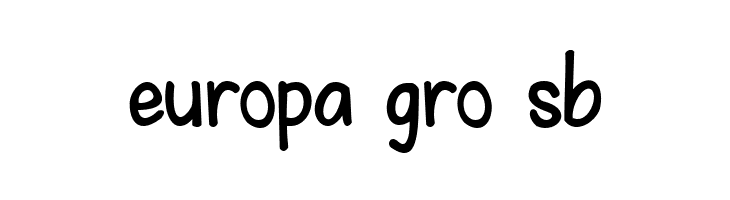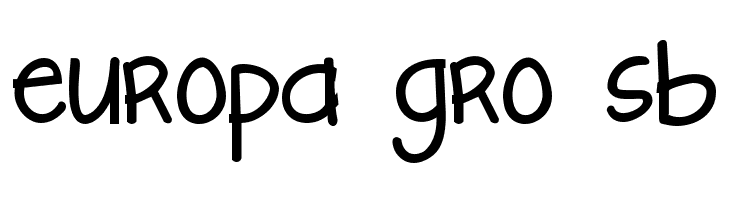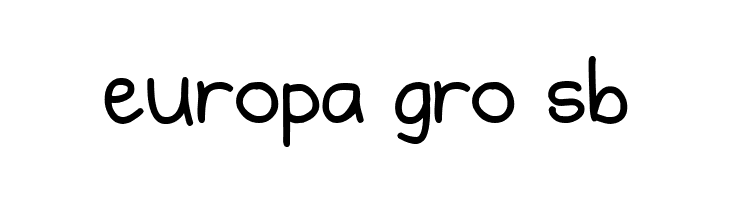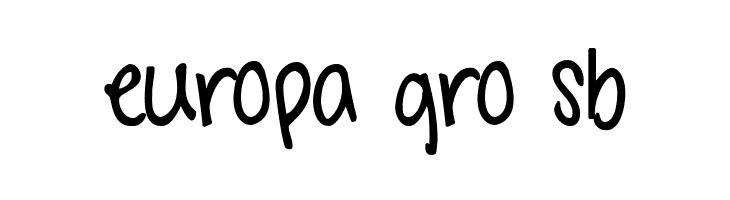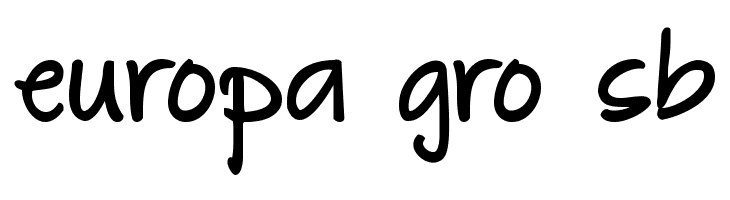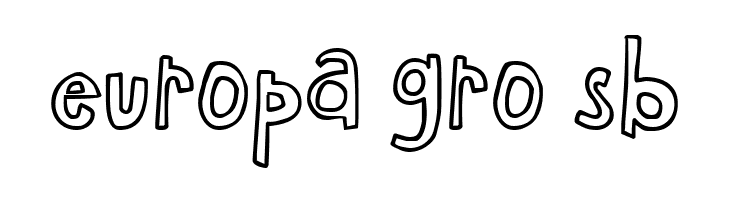
A bold, rounded font with a modern and playful style.
A playful, hand-drawn font with rounded, bubbly characters.
A bold, handwritten font with a playful and friendly style.
A playful, bold handwritten font with a casual and friendly style.
A playful, hand-drawn font with bold outlines and a whimsical style.
A bold, playful handwritten font with dynamic strokes and a casual style.
A bold, playful handwritten font with rounded strokes and a modern touch.
A casual, handwritten font with fluid, natural strokes and a playful appearance.
A bold, playful handwritten font with a casual and friendly style.
A bold, playful handwritten font with an energetic and informal style.